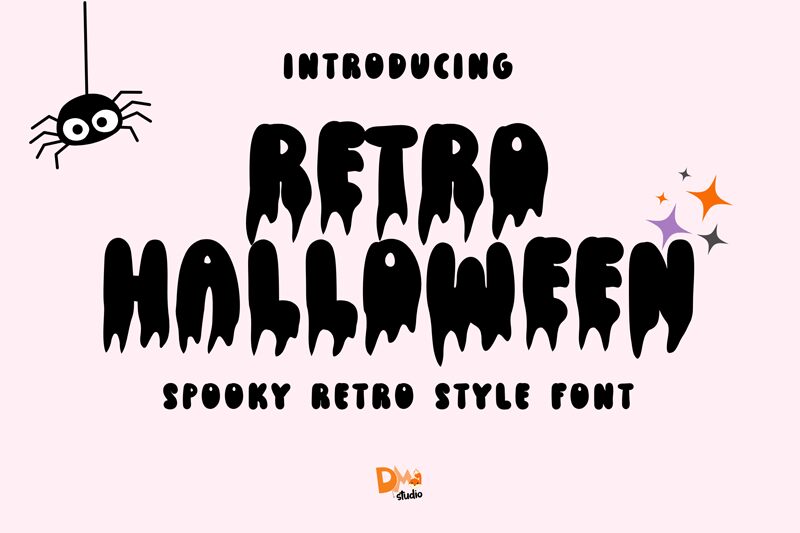
Retro Halloween
Retro Halloween font by DM Letter Studio - Dimas Prasetyo is a free Halloween display font. Its defining trick is the goo: bold, inky letterforms that melt into drips and stalactite tails, like fresh paint sliding down a haunted wall. The caps feel chunky and retro, giving off campy B‑movie poster energy while still reading clearly at a glance.
Using Retro Halloween, headlines jump out with a wet, slick texture that instantly sets a spooky mood. It shines on party invitations, haunted house posters, candy labels, social posts, YouTube thumbnails, stickers, and seasonal merch. For balance, pair this free font with a clean, no‑nonsense sans in small subheads and keep ample line spacing to let the drips breathe.